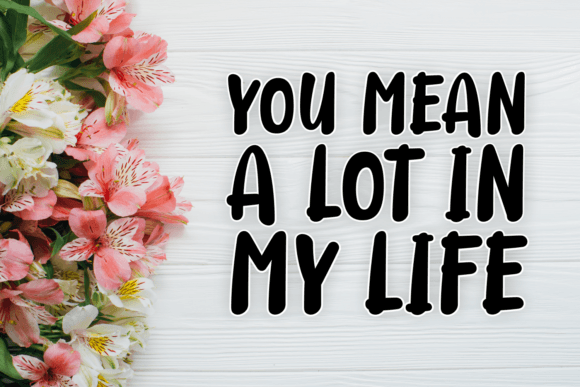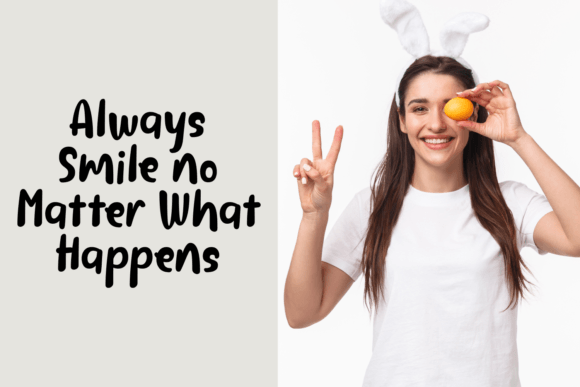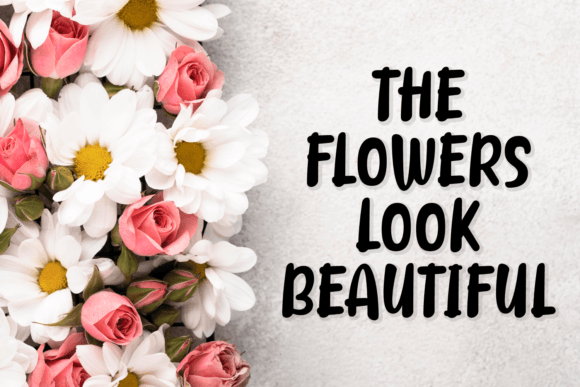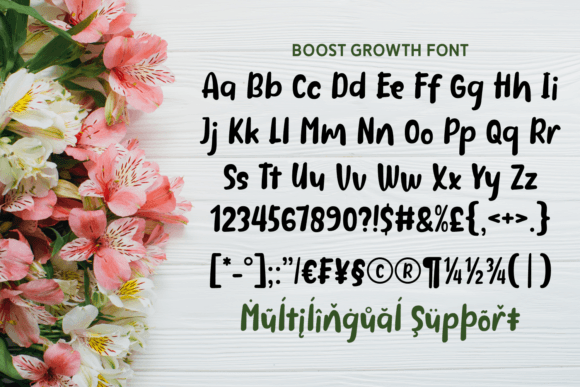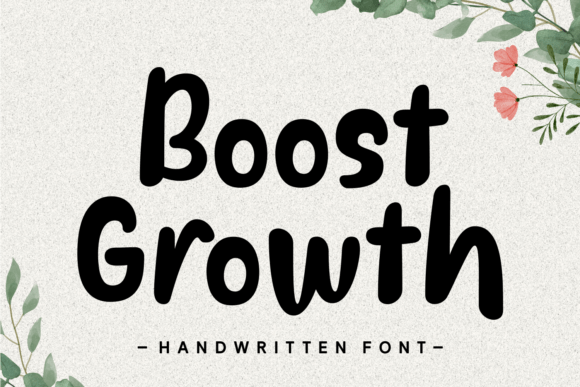
Unlocking Creativity with Boost Growth Font
I’ll never forget the time I was working on a project for a children’s party invitation. I had the design concept all sorted out, but something was missing – the perfect font. I scrolled through my font library, but nothing seemed quite right. That’s when I stumbled upon Boost Growth, a playful handwritten font that instantly brought a smile to my face. With its whimsical style, Boost Growth added a lighthearted and friendly vibe to my design, and I knew I had found the perfect fit.
A Personal Review of Boost Growth
As a designer, I’m always on the lookout for fonts that can bring a unique touch to my projects. Boost Growth has quickly become one of my go-to fonts, and here’s why:
- ✨ Playful and whimsical style: Boost Growth has a carefree, handwritten feel that’s perfect for adding a touch of fun to any design.
- ✅ Highly legible: Despite its playful nature, Boost Growth is surprisingly easy to read, making it suitable for both headings and body text.
- 💫 Versatile: This font is perfect for a wide range of projects, from party invitations and children’s books to branding and advertising materials.
Of course, no font is perfect, and Boost Growth has a few minor quirks:
- 🤔 Limited formal applications: While Boost Growth is amazing for informal designs, it might not be the best fit for more formal projects, such as corporate reports or academic papers.
- ⚠️ Some letter spacing issues: Occasionally, you might need to adjust the letter spacing to get the perfect look, especially when using all caps or mixing with other fonts.
One of the exciting aspects of Boost Growth is its support for OpenType features and glyphs. These features allow you to customize your text with:
- Stylistic alternates: Swap out letters for alternate versions, adding more variety to your text.
- Glyphs: Access special characters, such as ligatures, ornaments, and more.
By exploring these features, you can add a unique touch to your designs and make the most of Boost Growth’s playful personality.
The Story Behind Boost Growth
Boost Growth was designed with the intention of spreading joy and creativity. Its creator, a passionate typographer, aimed to craft a font that would bring a smile to people’s faces. Inspired by playful handwritten notes and children’s book illustrations, Boost Growth was born. Today, it’s a beloved font among designers and crafters, used in a wide range of projects.
| Font Name | Boost Growth Font |
| Author | Wankriss |
- Q: Is Boost Growth suitable for formal designs?
- A: While Boost Growth is amazing for informal designs, it might not be the best fit for formal projects, such as corporate reports or academic papers.
- Q: Does Boost Growth support OpenType features?
- A: Yes, Boost Growth supports OpenType features, including stylistic alternates and glyphs.